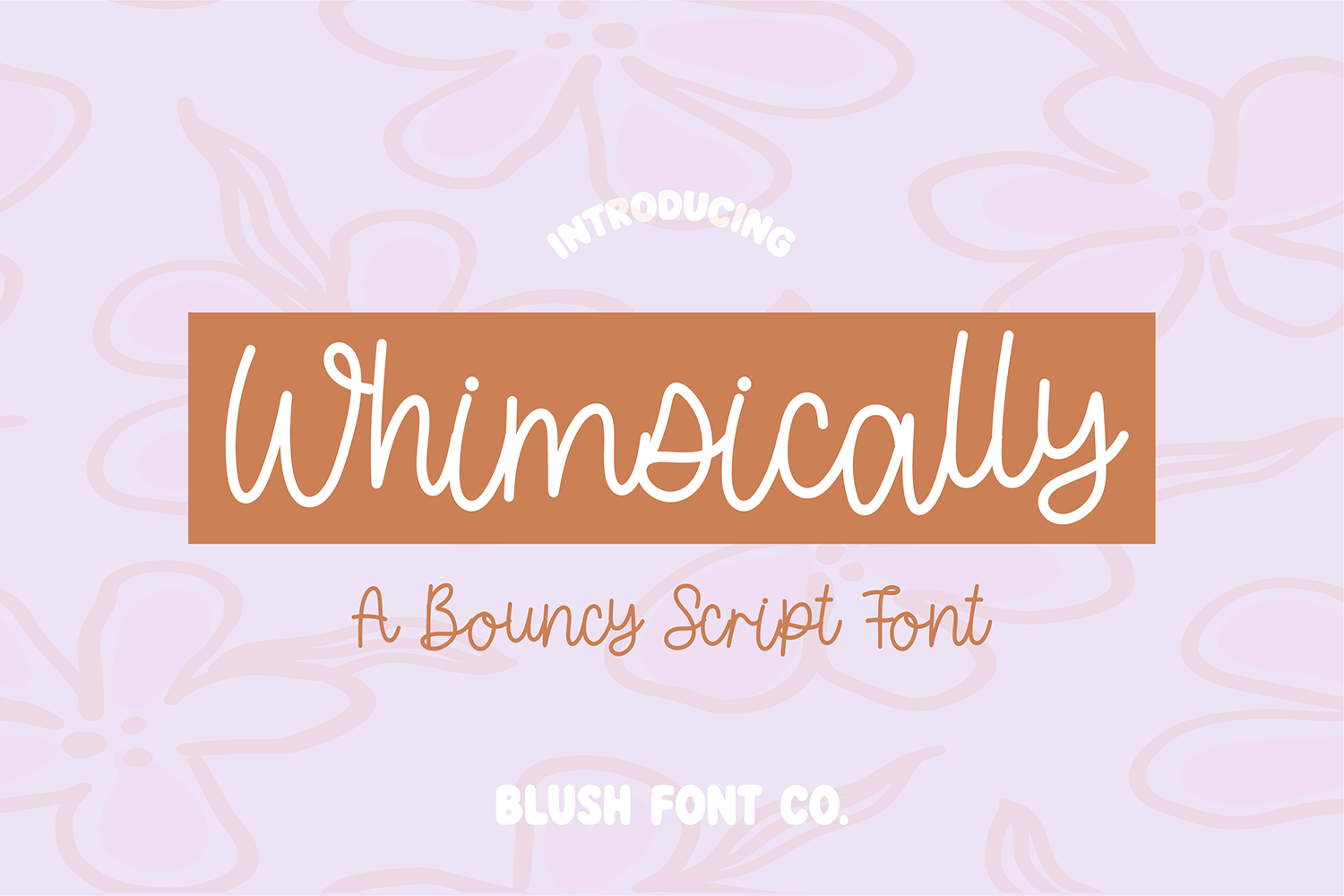
"Whimsically" pen script font.
This font is a whimsical cursive font that is perfect for social media or crafty projects.
"Whimsically" pen script font.
This font is a whimsical cursive font that is perfect for social media or crafty projects.